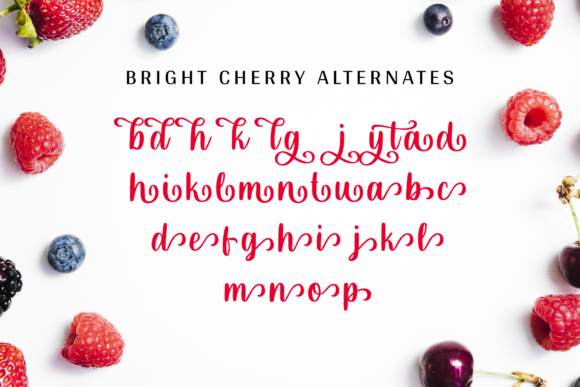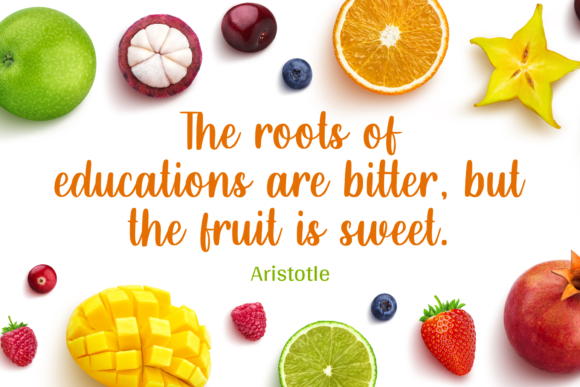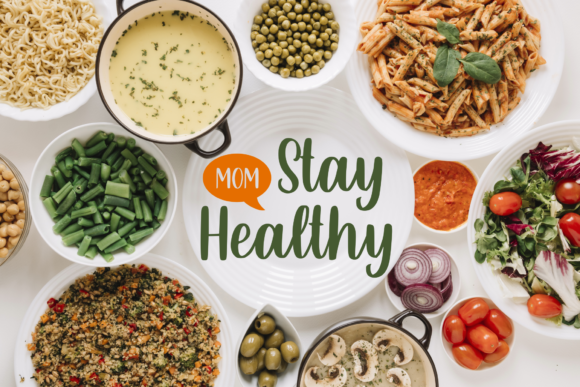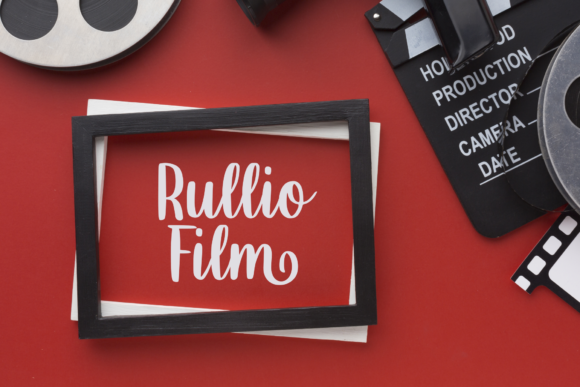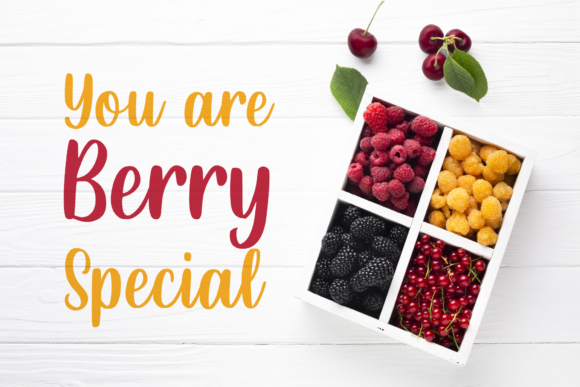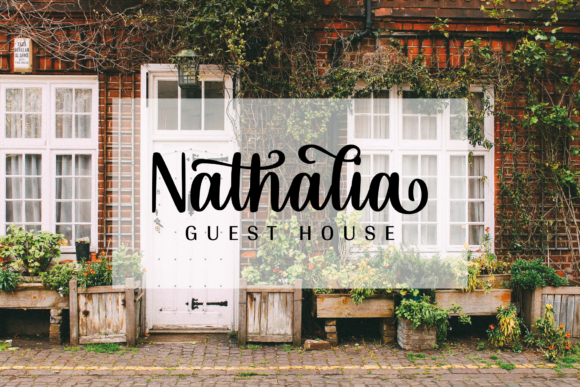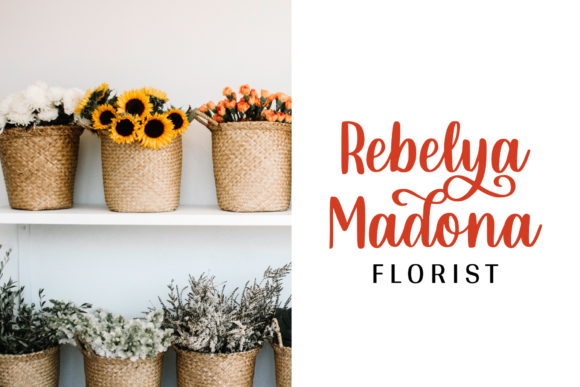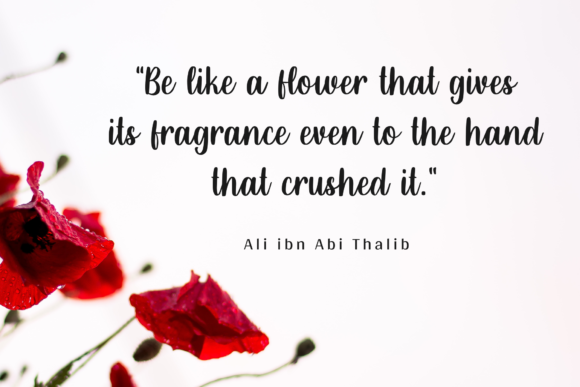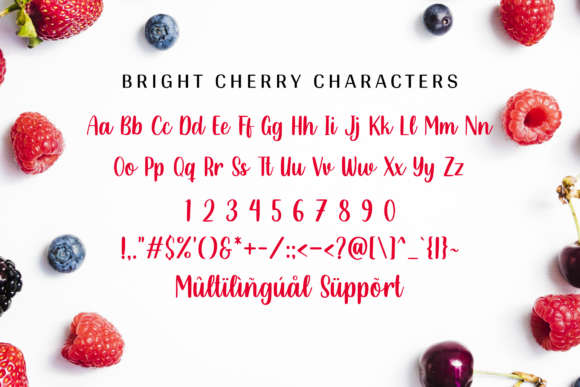
Bright Cherry Font
Bright Cherry is a magical handwritten font carefully created with a touch of elegance. This is a beautiful combination of timeless elegance and authentic calligraphy. It features an incredibly classic style, while still keeping a friendly feel. Bright Cherry is the perfect font for making original and outstanding designs.